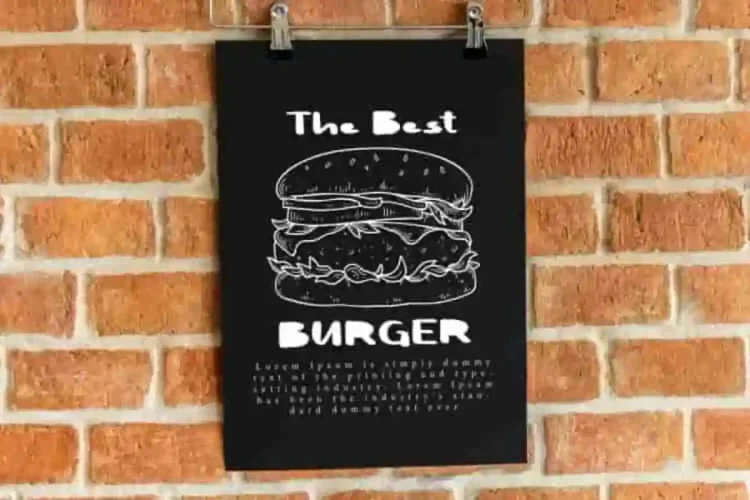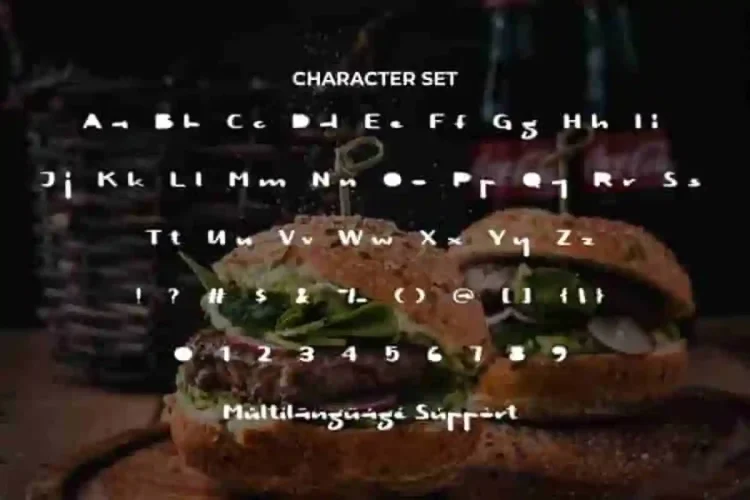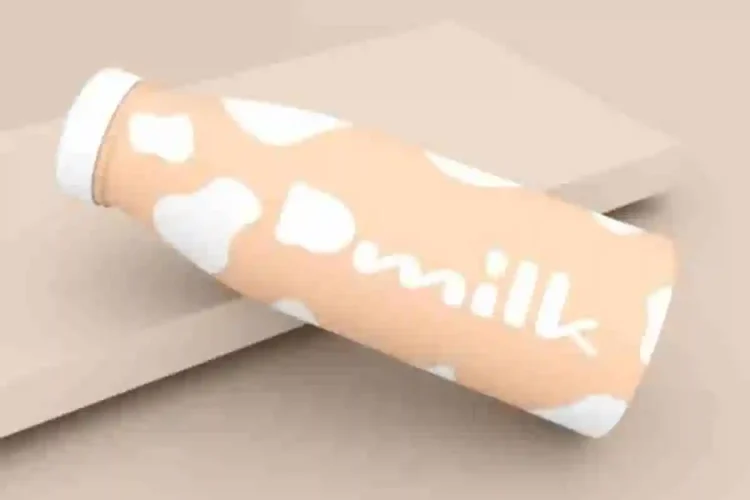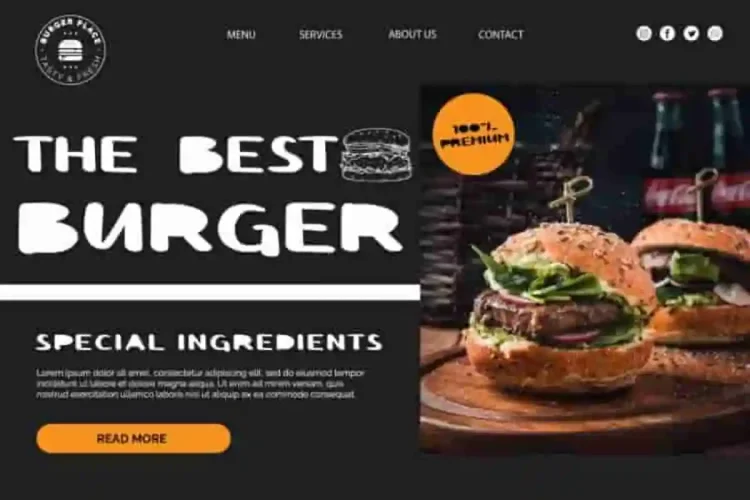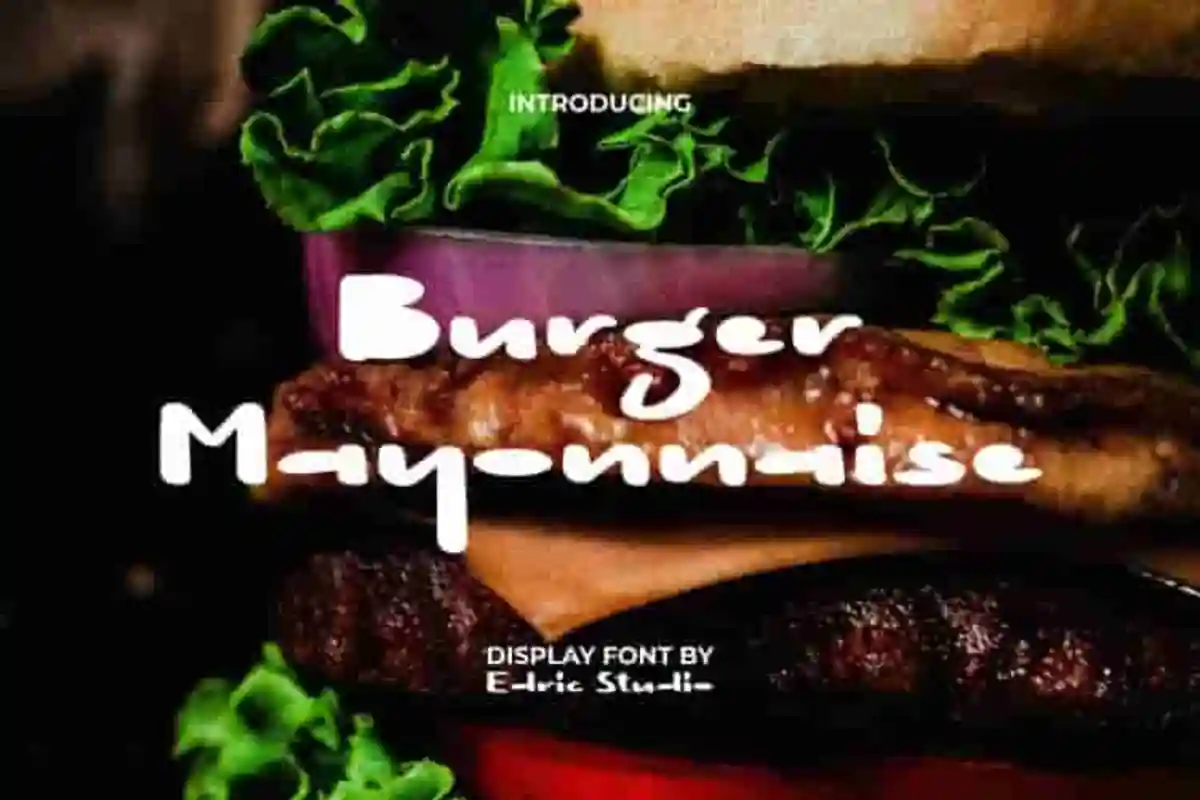
Burger Mayonnaise Display Font a fun and stylish display typeface created by EdricStudio. Is a uniquely playful display font that has cute and stylish appearance. Despite its quirky design, it remains easy to read and versatile, making it ideal for industries such as bakery and pastry, café, restaurant, comic, furniture, movie, event organizer, handicraft, and more.
Burger Mayonnaise Display Font comes with a full set of Uppercase and Lowercase Basic Characters, Number, Punctuation, and Symbol. This font is still easy to read and can complement any project, including: brand image, cover, custom design, flyer, header, invitation, label, menu, poster, product packaging, quote, screen print, signage, stationery, sticker, title, watermark, website, etc.
Burger Mayonnaise Font is a playful typeface with unique decoration in each character. It’s tested to work well in the Adobe Apps (Illustrator, Adobe InDesign, Adobe Photoshop) even work on Microsoft Word. PUA Encode Characters means you can access all characters easily – Fully accessible without additional design software.